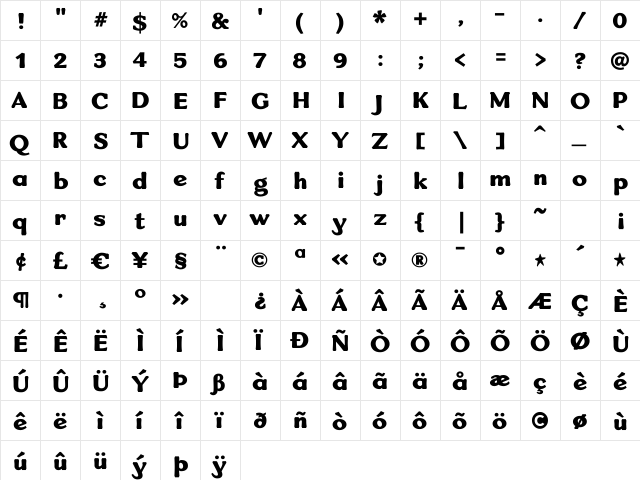
VenisExtra Bold Regular Font Preview
VenisExtra Bold Regular
VenisExtra Bold Regular Font Details
Design Context for VenisExtra Bold Typeface
VenisExtra Bold takes a measured approach to typography — its balanced proportions and neutral character make it a reliable workhorse for both digital and print work. Its bold stroke weight gives it real presence on the page.